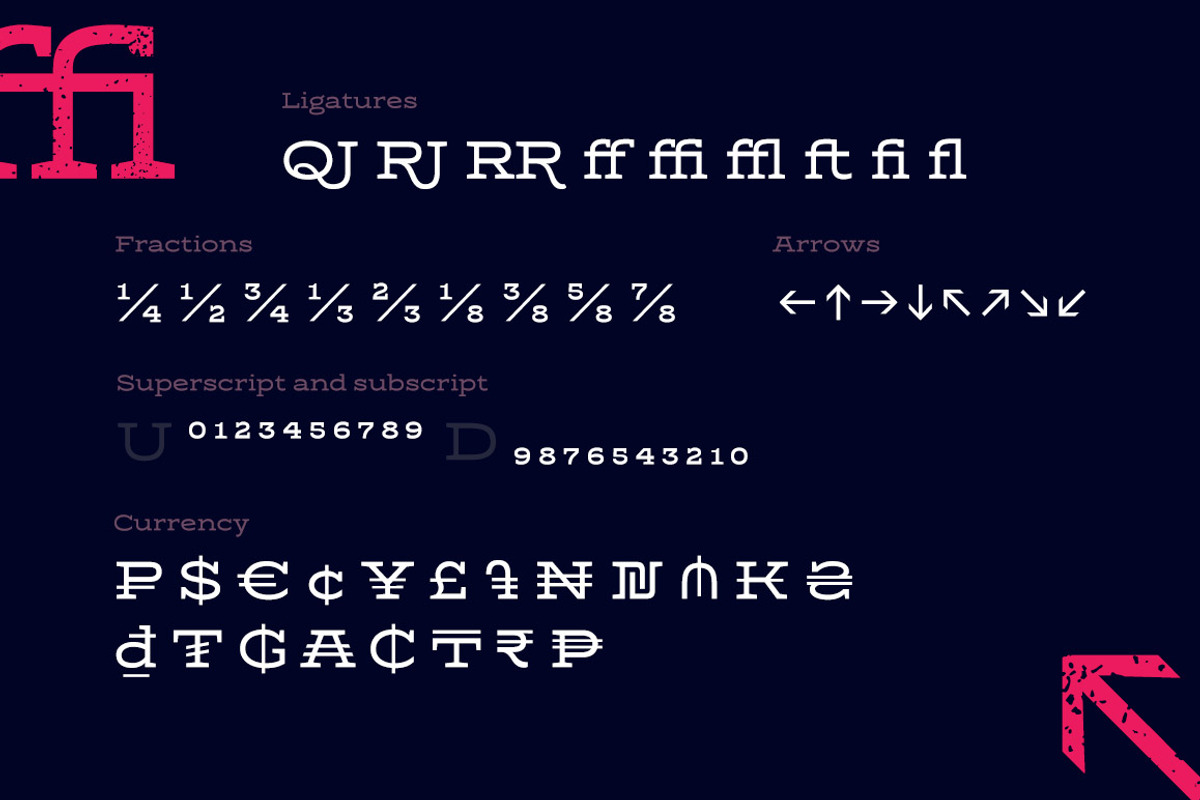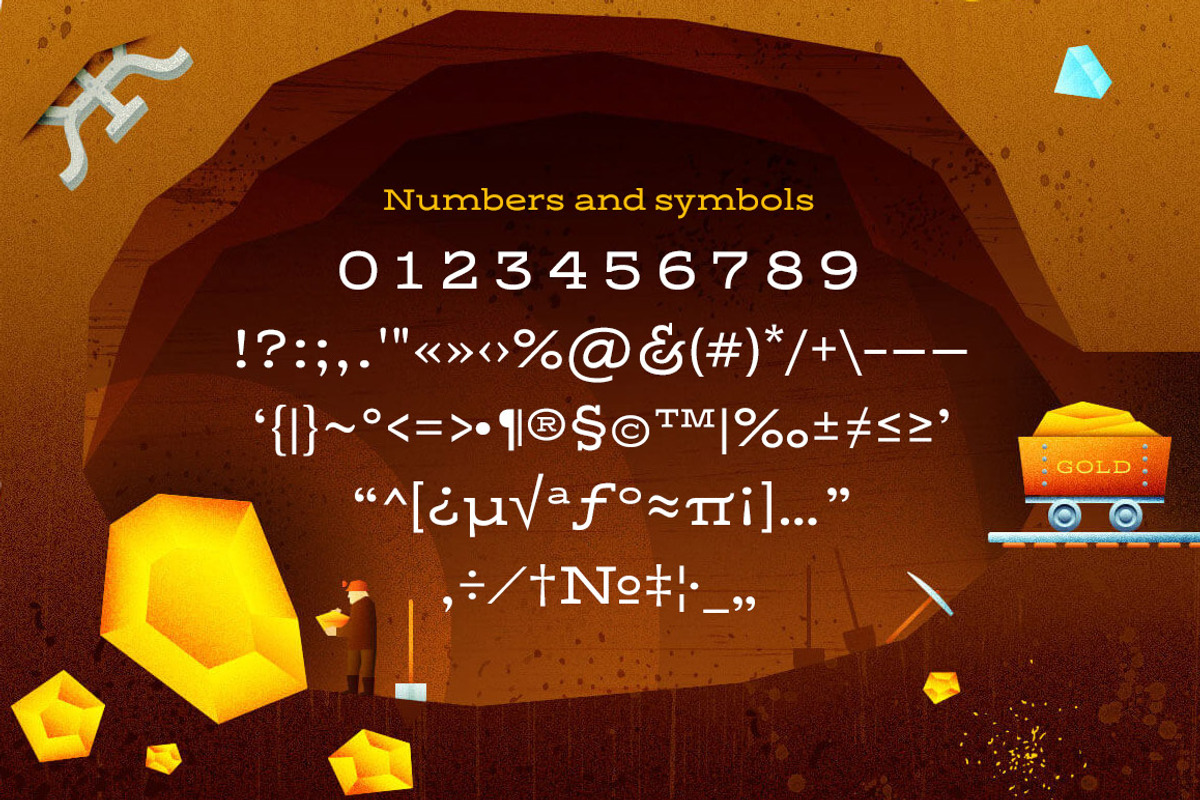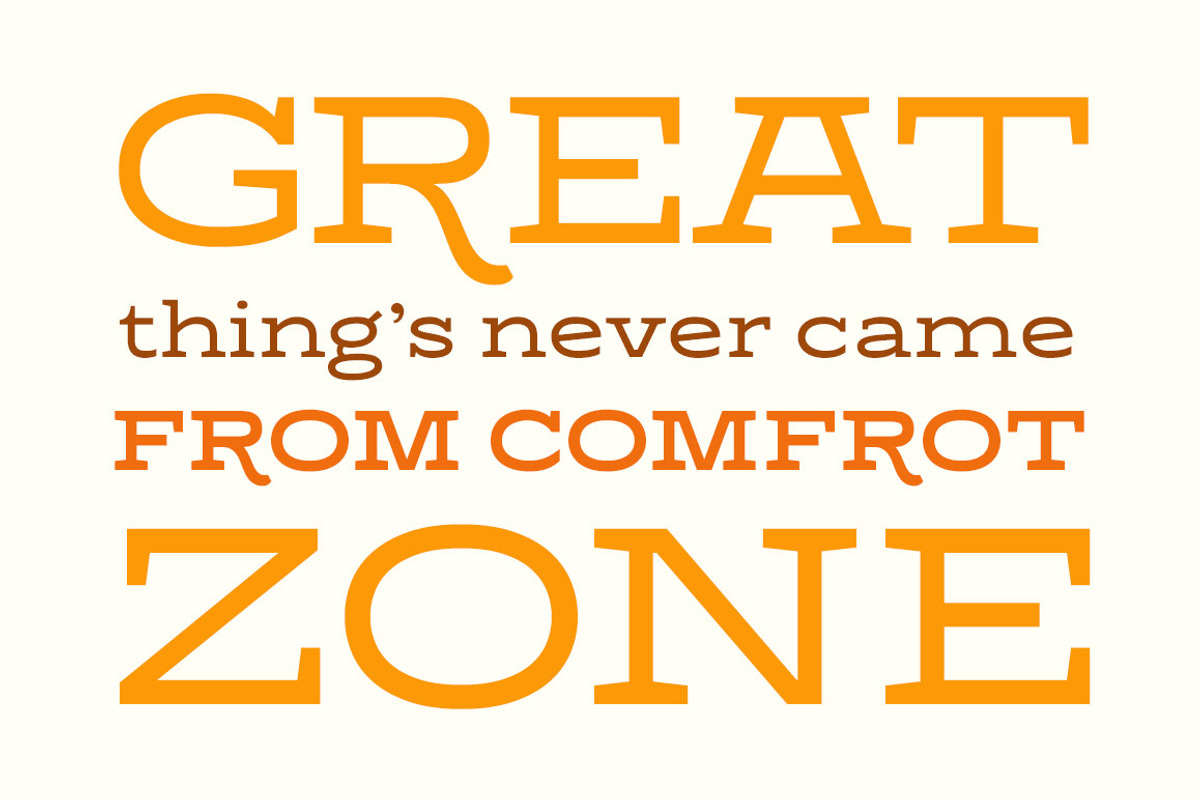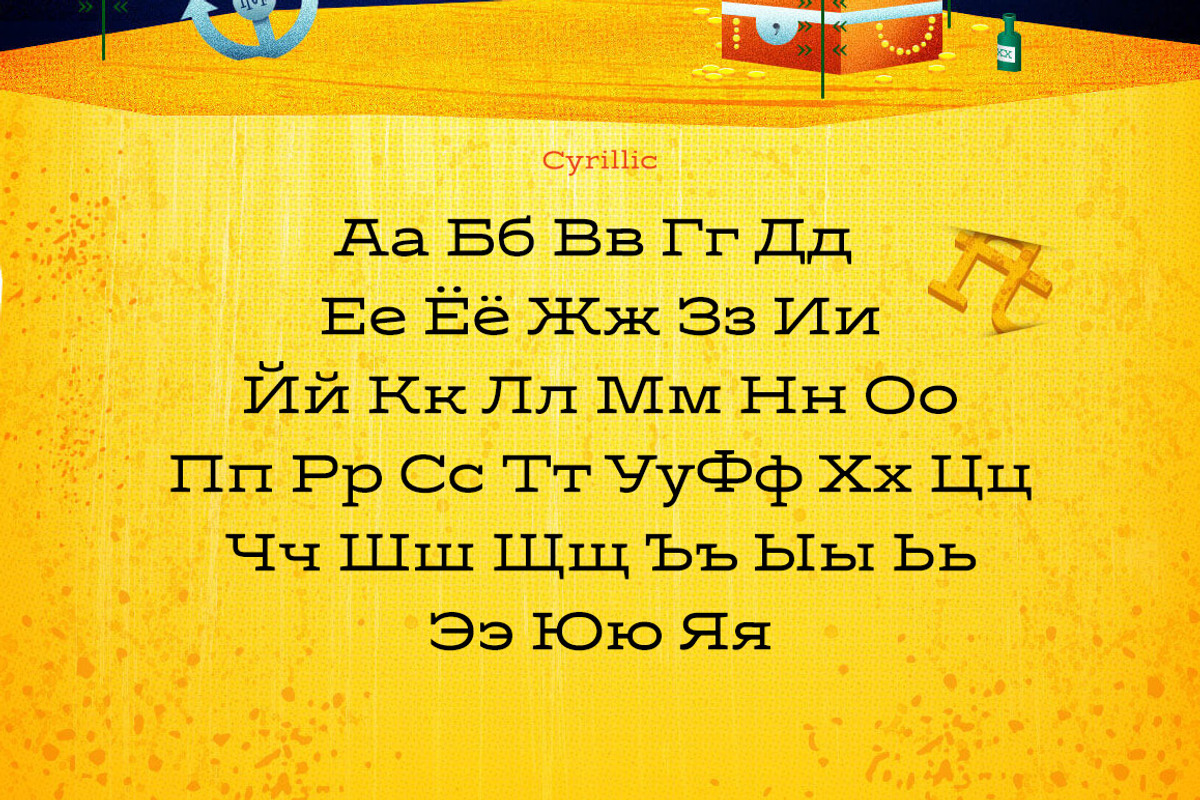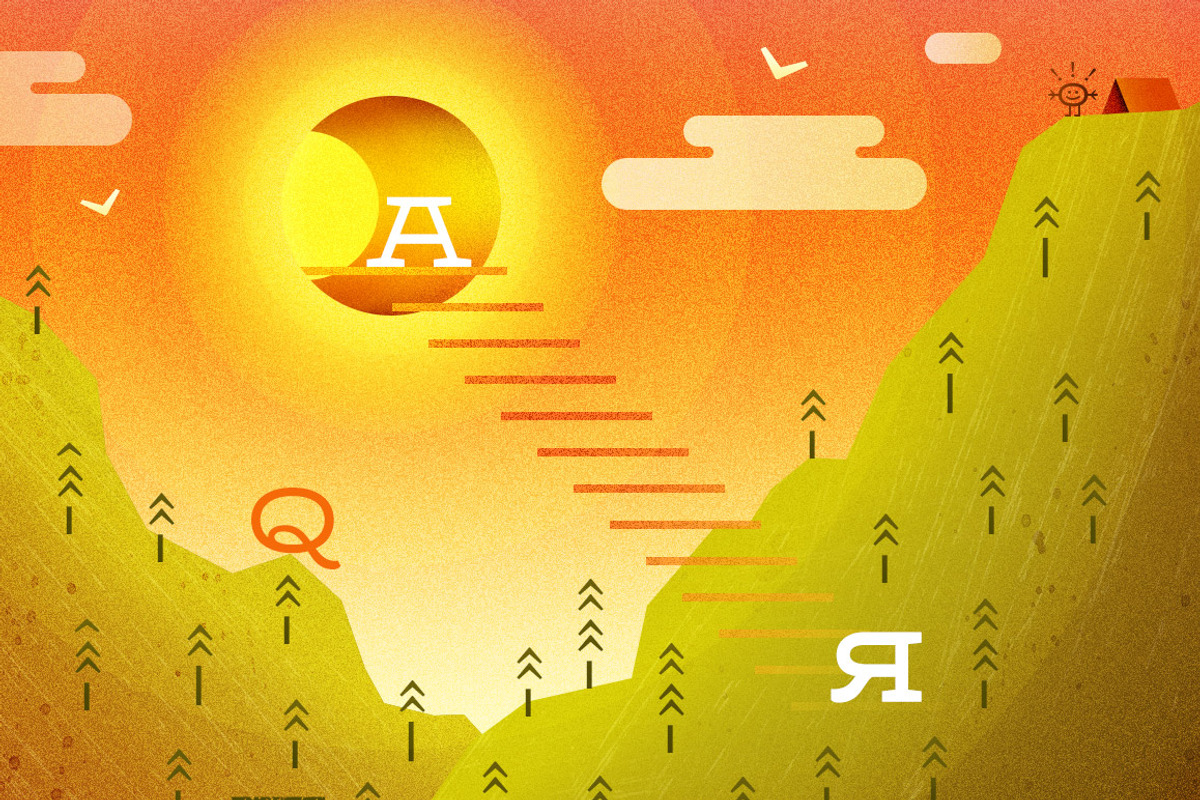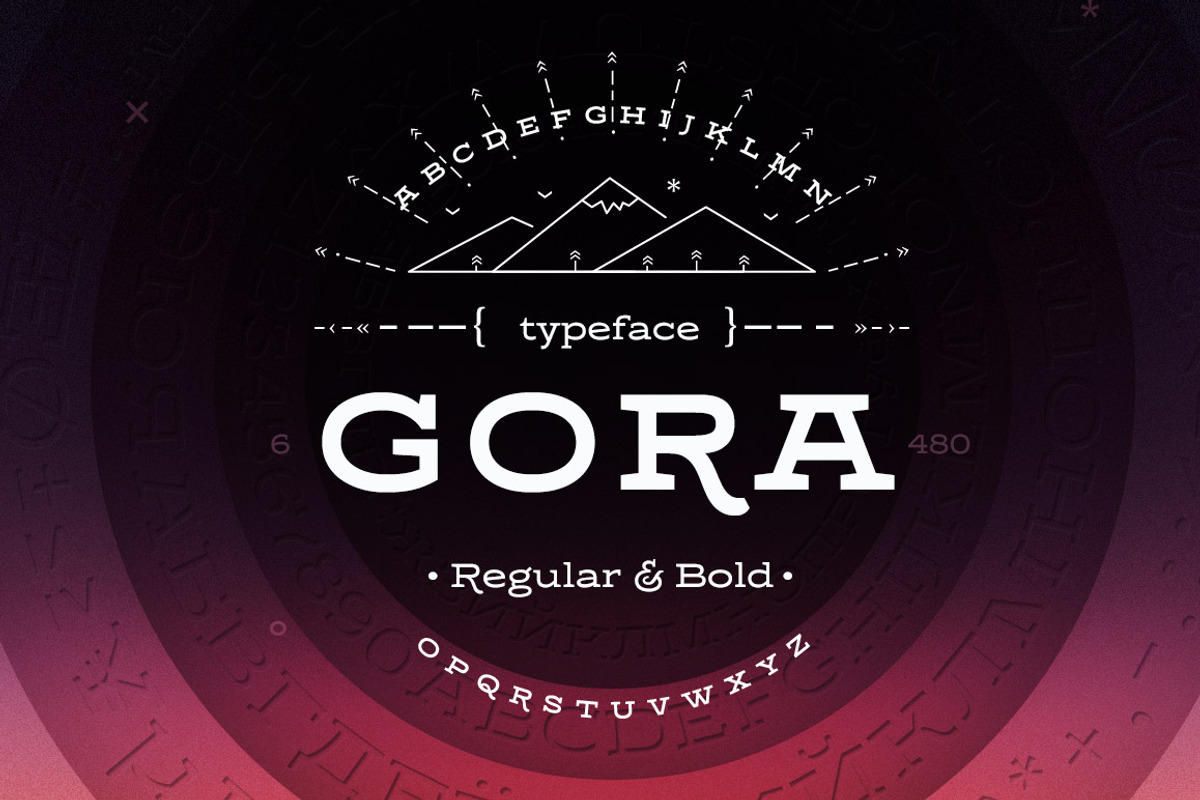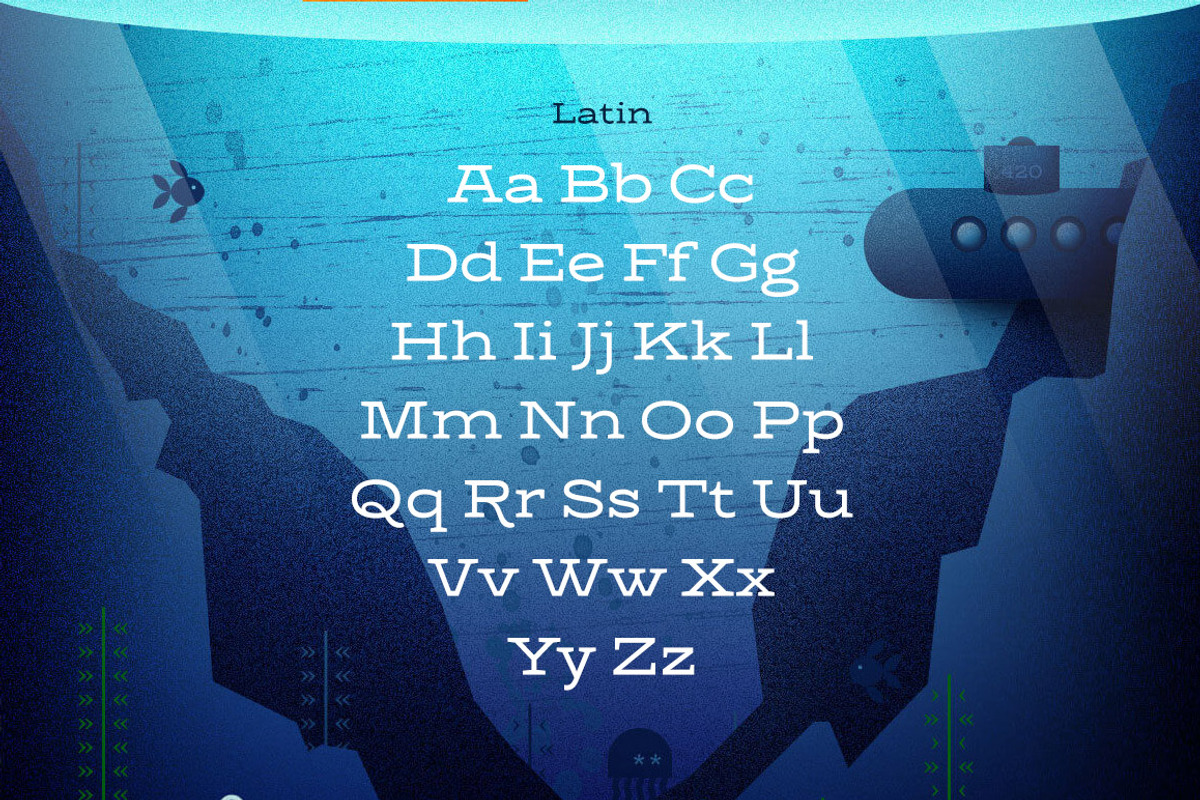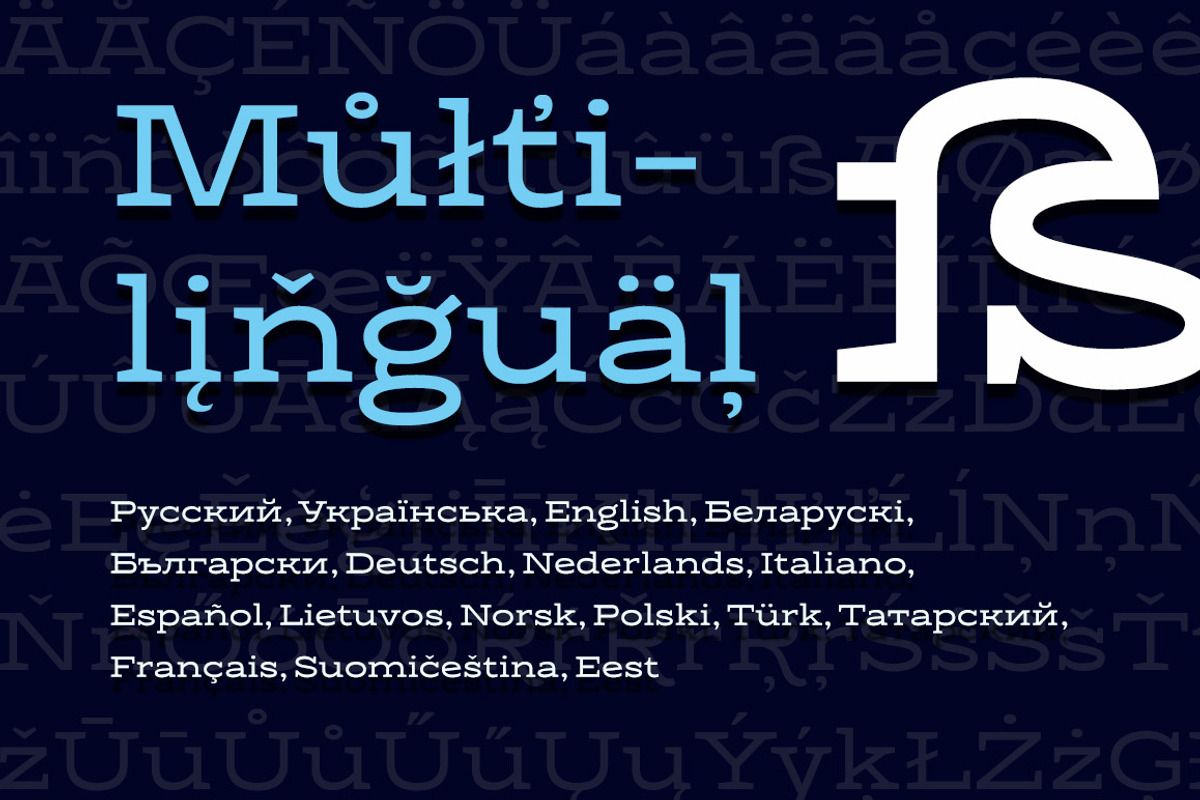
Gora - Regular & Bold
Gora - Regular & Bold by Russian Fonts is a font selected for branding, posters, packaging, typography.
- This package include 2 weights: Regular, Bold.
- «Gora» includes many features: ligatures, fractions, numbers, subscript and superscript numbers, arrows, and currency symbols.
Gora - Regular & Bold by Russian Fonts fits naturally into Branding, posters, packaging, typography.